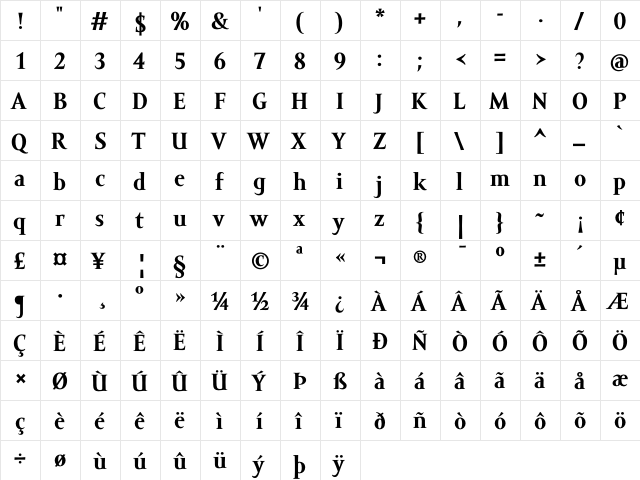
Amor Serif Text Pro Bold
| Designer | Frantisek Storm |
Design Context for Amor Serif Text Pro Typeface
Amor Serif Text Pro carries the refined structure of traditional serif typography, with bracketed terminals and considered proportions that communicate credibility and craft. Its bold stroke weight gives it real presence on the page.
Pro Tip: Use Amor Serif Text Pro for editorial body copy and considered headline work. Pair with a neutral sans for UI elements or captions to create a classic hierarchy.